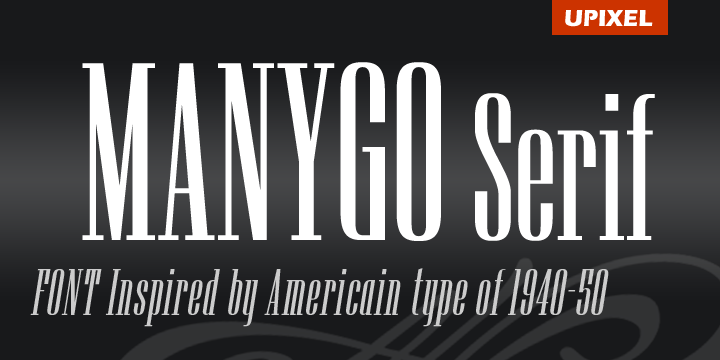
Manygo Serif Font excels across diverse design applications including literary publishing, academic communications, traditional branding, formal invitations, legal documentation, historical publications, prestigious institutional materials, and elegant editorial design. Its classical character makes it particularly effective for projects requiring scholarly authority while maintaining contemporary readability, ensuring your designs convey intellectual credibility and timeless sophistication across both digital platforms and premium print materials.
What makes Manygo Serif Font truly exciting is its masterful balance of traditional serif principles and contemporary design refinements that creates compelling scholarly communications. The font features meticulously crafted letterforms that incorporate classic serif proportions and elegant details that enhance readability while providing distinctive personality that elevates academic and literary communications. Its distinctive character construction draws inspiration from historical typography masters while incorporating modern optical adjustments, creating text that feels both historically grounded and contemporarily relevant. The font's optimized metrics and classical proportions ensure superior performance across various scholarly applications while preserving the characteristic authority that defines its intellectual personality.
Manygo Serif Font presents a comprehensive type family designed to support demanding academic and literary requirements. The family typically includes light, regular, medium, bold, and black weights, complemented by matching italic styles that provide complete typographic flexibility for sophisticated scholarly hierarchies. Advanced versions often feature extended character sets with academic symbols, classical ornaments, and specialized glyphs essential for scholarly communications and literary applications.
The Manygo Serif Font Free Download represents exceptional value for designers working on academic and literary-focused projects across multiple educational sectors. Whether developing scholarly publication design, creating academic institutional branding, designing formal correspondence materials, or producing literary magazine content, this font delivers consistent elegance and memorable intellectual authority. Its scholarly characteristics make it particularly effective for industries including academic publishing, legal services, cultural institutions, and traditional crafts sectors seeking to communicate established expertise and intellectual rigor.
For optimal results, Manygo Serif Font pairs beautifully with classical design elements and sophisticated typography combinations that complement its traditional character. Its authoritative presence dominates headline applications while maintaining exceptional legibility in extended reading contexts. The font's classical sophistication and scholarly authenticity make it an invaluable resource for creating intellectual communications that resonate with audiences appreciating traditional craftsmanship and academic excellence.